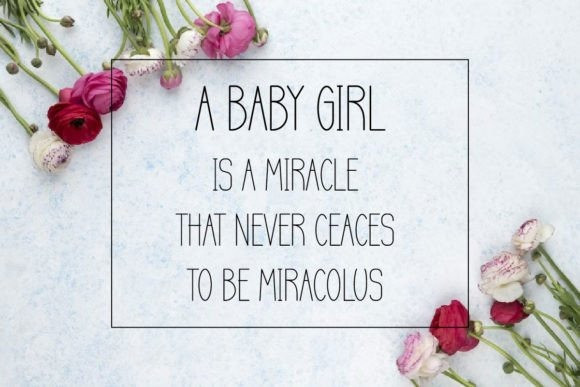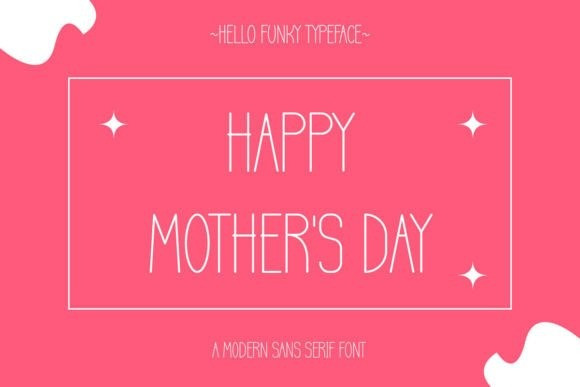
Hello Funky Font
Hello Funky Font is designed in a cute and playful sans serif font style. It’s charming, whimsical, and also minimalist. It would be awesome for your fun projects or diary planners, posters, blogs, clothing, child-related designs, greeting cards, social media posts, or anything that needs a friendly touch. Add it now to your fonts library, and it will bring any of your DIY projects to life.